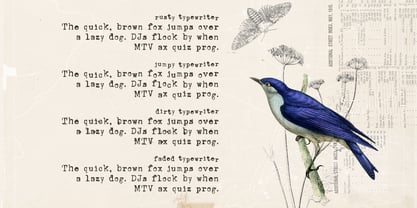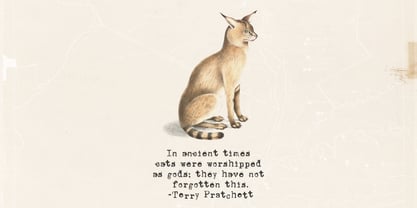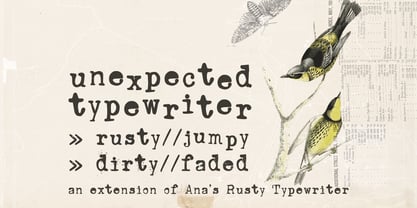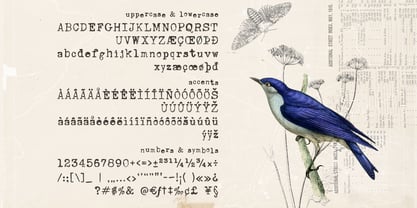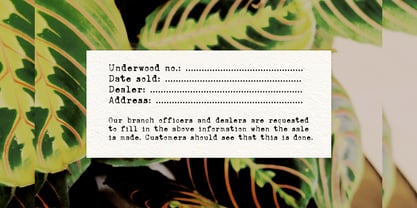
Unexpected Typewriter
by Ana's Fonts
The Unexpected Typewriter Font Family was designed by Ana Parracho and published by Ana's Fonts. Unexpected Typewriter contains 4 styles and family package options. More about this family
Meet Unexpected Typewriter! A hand-drawn font inspired by the character and charm of an old Underwood typewriter. It includes 3 unique variations: Jumpy, Dirty, and Faded Typewriter, so you can easily create different levels of vintage, worn, and imperfect texture. Perfect for posters, branding, packaging, invitations, logos, and creative projects that need a nostalgic, grungy typewriter feel.